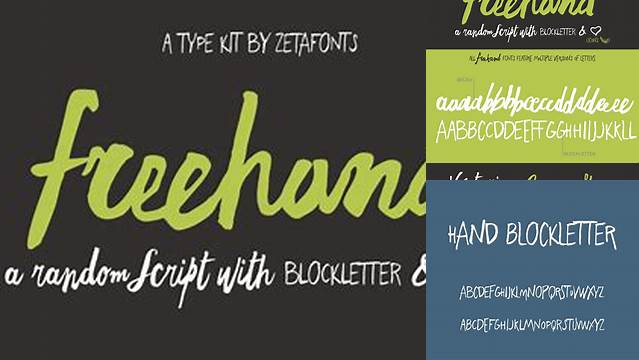
Freehand Blockletter Font: Download And Usage Guide
Are you looking to download freehand blockletter fonts? If so, you've come to the right place! In this article, we'll explore everything you need to know about freehand blockletter fonts, including what they are, where to find them, and how to use them in your projects. Freehand blockletter fonts, often characterized by their bold, hand-drawn appearance, bring a unique and personalized touch to any design. Whether you're creating posters, logos, invitations, or any other kind of visual content, these fonts can help you stand out from the crowd. The distinct style of freehand blockletter fonts makes them incredibly versatile. They can evoke a sense of nostalgia, creativity, or ruggedness, depending on the specific design and application. From vintage-inspired graphics to modern, urban-themed projects, the right freehand blockletter font can add that perfect finishing touch. When choosing a freehand blockletter font, consider the overall tone and message of your project. A rough, textured font might be ideal for a grunge-style poster, while a cleaner, more refined blockletter could be perfect for a sophisticated invitation. Think about the legibility of the font as well – while the hand-drawn look is appealing, you want to ensure that your text is still easy to read. Exploring different variations and styles within the freehand blockletter category can help you discover the perfect match for your creative vision. Also, remember to check the licensing terms of any font you download. Some fonts are free for personal use but require a commercial license for business applications. Understanding these terms will help you avoid any legal issues down the road. So, dive in and discover the world of freehand blockletter fonts – your next design masterpiece might just be a font download away!
What is Freehand Blockletter Font?
Freehand blockletter fonts are a distinctive style of typography that mimics the appearance of hand-drawn, block-style lettering. These fonts are designed to look as though they were created manually, giving them a unique, personal, and often imperfect aesthetic. The charm of freehand blockletter fonts lies in their ability to blend the structure of traditional block letters with the organic feel of handwriting. This combination makes them incredibly versatile and suitable for a wide range of design projects. Unlike perfectly uniform, digital fonts, freehand blockletter fonts often feature slight variations in stroke width, letter height, and spacing. These subtle inconsistencies contribute to their handcrafted appearance, making each letter feel unique and adding character to the overall text. The raw, authentic feel of these fonts can evoke a sense of nostalgia, creativity, or ruggedness, depending on the specific design. Freehand blockletter fonts are commonly used in designs that aim to convey a sense of authenticity or handmade quality. They are popular in branding for artisan businesses, crafting blogs, and vintage-inspired designs. You'll often see them in posters, flyers, and merchandise for events that want to project a casual or alternative vibe. They also work well in logos, headlines, and short bursts of text where you want to make a bold statement. When using freehand blockletter fonts, it's important to consider the context and ensure that the font complements the overall design. A rough, textured blockletter might be ideal for a grunge-style poster, while a cleaner, more refined blockletter could be perfect for a sophisticated invitation. Remember to pay attention to the legibility of the font as well – while the hand-drawn look is appealing, you want to ensure that your text is still easy to read. Exploring different variations and styles within the freehand blockletter category can help you discover the perfect match for your creative vision. These fonts are more than just letters; they are a way to infuse your designs with personality and a human touch. So, if you're looking to add some character to your projects, consider giving freehand blockletter fonts a try. Their blend of structure and spontaneity might just be the perfect ingredient for your next design masterpiece.
How to Use Freehand Blockletter Fonts in Your Projects
Once you download freehand blockletter fonts, the next step is to integrate them effectively into your design projects. These fonts, with their unique and hand-drawn aesthetic, can add a distinctive touch to a variety of applications, but it's important to use them strategically to achieve the desired impact. One of the most common uses for freehand blockletter fonts is in branding. These fonts can help create a memorable and authentic brand identity, especially for businesses that want to convey a sense of craftsmanship, creativity, or vintage charm. Use them in logos, business cards, and marketing materials to establish a consistent brand image. For example, a local brewery might use a rough, textured blockletter font to evoke a sense of handcrafted quality and local heritage. When using freehand blockletter fonts in branding, it's important to consider the overall tone and message of your brand. A more refined blockletter might be suitable for a high-end artisanal brand, while a bolder, more rugged blockletter could be perfect for a brand that caters to outdoor enthusiasts. Another popular application for freehand blockletter fonts is in posters and flyers. These fonts can make your designs stand out and grab attention, especially when used for headlines or short bursts of text. The hand-drawn look adds a personal touch that can be particularly effective for promoting events, concerts, or community gatherings. Experiment with different sizes, colors, and spacing to create a visually appealing and impactful design. In web design, freehand blockletter fonts can be used to add visual interest and personality to headlines, banners, and other graphic elements. However, it's important to use these fonts sparingly and ensure that they are legible on different devices and screen sizes. Too much use of decorative fonts can make your website look cluttered and unprofessional. Stick to using them for key elements and ensure that your body text is easy to read. Social media graphics are another great place to incorporate freehand blockletter fonts. Use them to create eye-catching visuals for your posts, stories, and ads. The hand-drawn look can help your content stand out in the crowded social media landscape and capture the attention of your target audience. Just remember to keep your designs consistent with your overall brand identity. When using freehand blockletter fonts, it's important to consider the overall design context. These fonts work best when paired with simple, clean graphics and plenty of white space. Avoid using too many fonts in a single design, as this can make your layout look cluttered and confusing. Also, be mindful of the legibility of the font. While the hand-drawn look is appealing, you want to ensure that your text is still easy to read, especially at smaller sizes. By following these tips, you can effectively integrate freehand blockletter fonts into your design projects and create visually appealing and impactful designs.
In conclusion, the ability to download freehand blockletter fonts opens up a world of creative possibilities for designers and hobbyists alike. These fonts, characterized by their unique, hand-drawn aesthetic, bring a personal and authentic touch to any project, making them a valuable asset in various design applications. Whether you're working on branding, posters, web design, or social media graphics, freehand blockletter fonts can help you create visually appealing and memorable designs. The versatility of these fonts lies in their ability to blend the structure of traditional block letters with the organic feel of handwriting. This combination makes them suitable for a wide range of design projects, from vintage-inspired graphics to modern, urban-themed creations. They evoke a sense of nostalgia, creativity, or ruggedness, depending on the specific design and application, allowing you to convey different moods and messages effectively. Finding freehand blockletter fonts is relatively easy, thanks to the numerous online resources available. Websites like Google Fonts, Font Squirrel, and DaFont offer a wide selection of fonts, including many freehand blockletter styles. However, it's important to exercise caution when downloading fonts from these sources. Always ensure that you're obtaining fonts from reputable websites and carefully review the licensing terms to avoid any legal issues. When using freehand blockletter fonts in your projects, remember to consider the overall design context. These fonts work best when paired with simple, clean graphics and plenty of white space. Avoid using too many fonts in a single design, as this can make your layout look cluttered and confusing. Also, be mindful of the legibility of the font, especially at smaller sizes. By following these guidelines, you can effectively integrate freehand blockletter fonts into your designs and create visually appealing and impactful visuals. So, whether you're a seasoned designer or a beginner exploring the world of typography, consider giving freehand blockletter fonts a try. Their unique charm and versatility might just be the perfect ingredient for your next design masterpiece. Embrace the hand-drawn aesthetic and let your creativity flow!